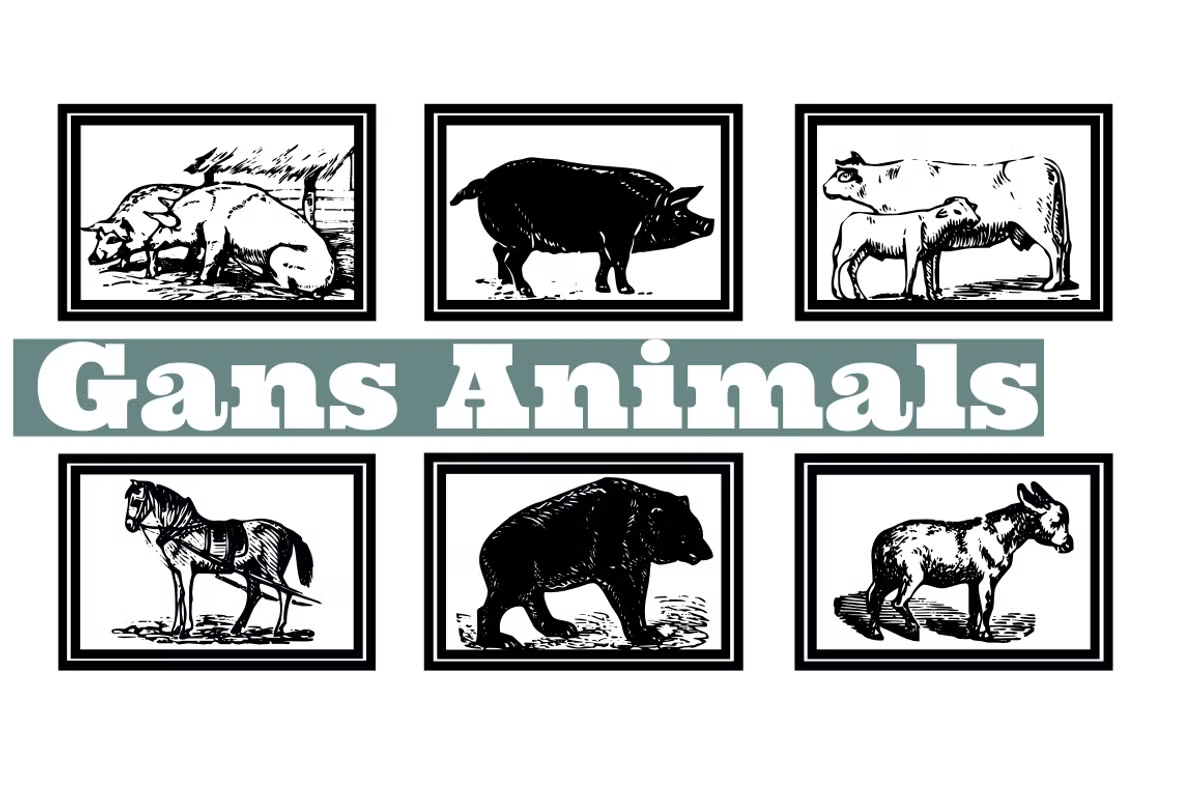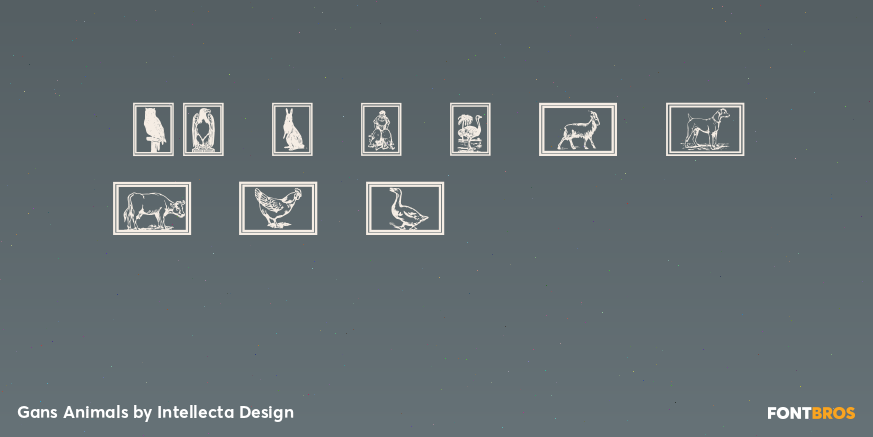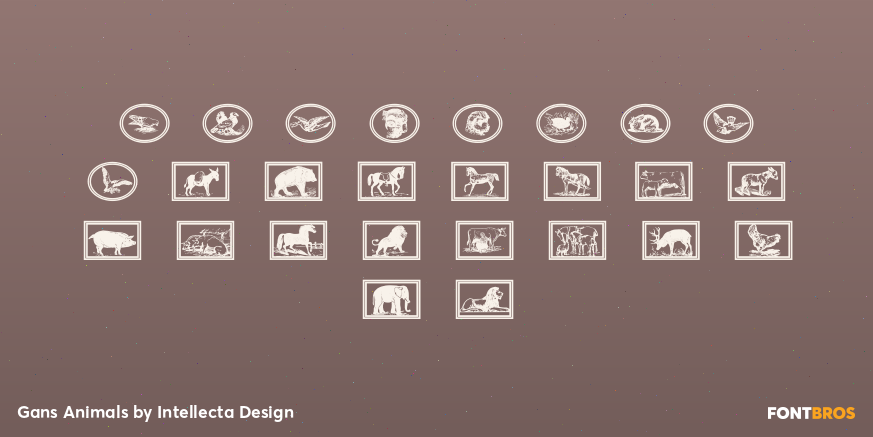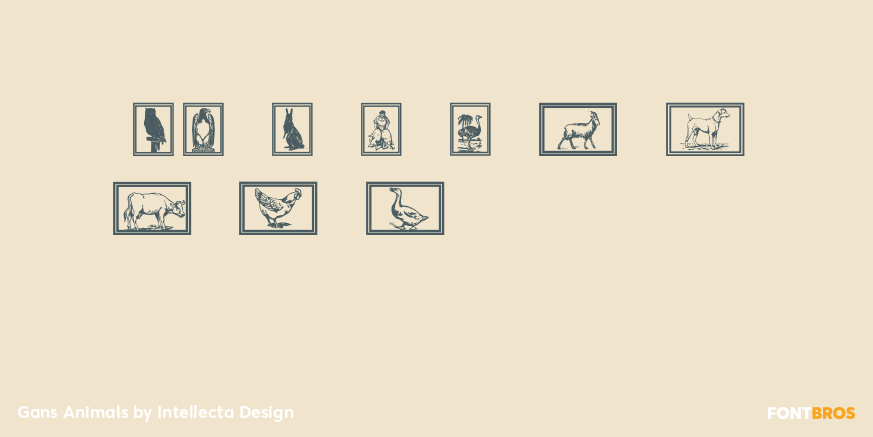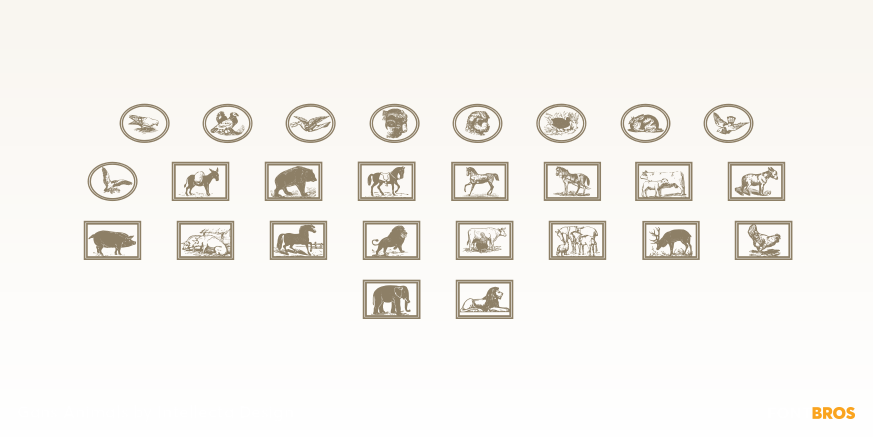
Gans Animals
Font Family by Intellecta Design
A collection of animal drawings in font format. A great set of type dingbats in the genre of farm animals and more. images were selected from the vignettes catalog from Fundicion Gans published in 1920.